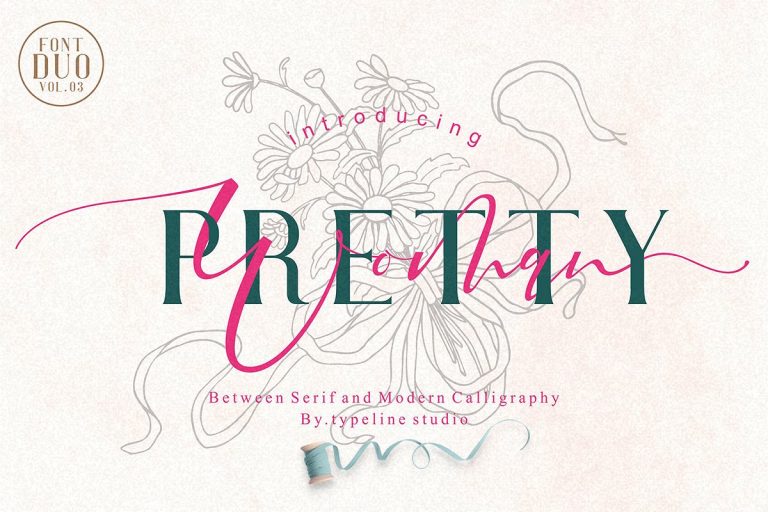
Pretty Woman Font Duo
A new stylish font duo serif & script typeface. This is DUO font, perfect for making bold stylish statments – or adding a touch of class to your designs. Say hello to Pretty Woman. Pretty woman is font duo between serif and modern calligraphy, pretty woman good for logo branding,wedding invitation,typhography wedding,quotes text,magazine,or anything do you want.